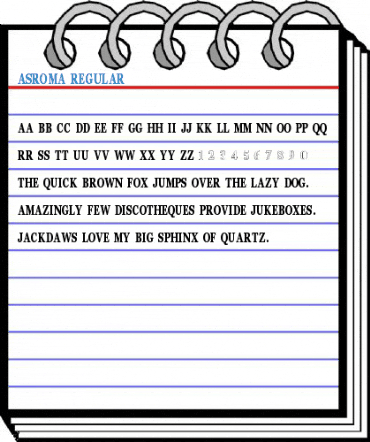
ASRoma Regular Font
Copyright: AS Roma Soccer Uniform font. On US Keyboards, Shift-numbers yield the 'inside' of the hollow digits and can be used for multi-color output.